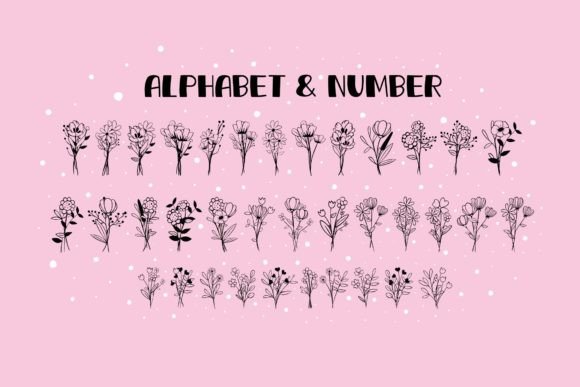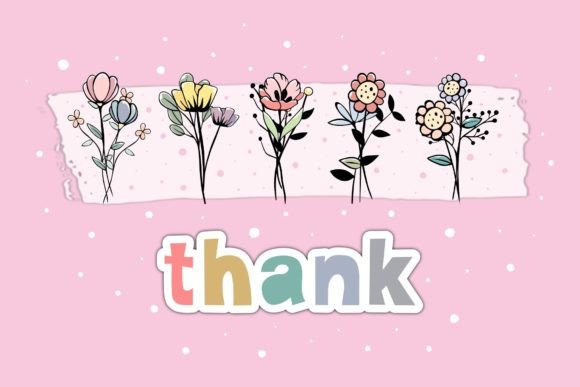
Unleash Your Creativity with the Bunch of Flowers Font
Have you ever found yourself lost in a sea of ideas, with a blank page staring back at you, begging for inspiration? We’ve all been there. As creatives, we’re constantly seeking that spark that sets our imagination ablaze and brings our visions to life. For designers, finding the perfect font can be the missing piece that ties everything together.
That’s where the Bunch of Flowers Font comes in – a nature dingbats font that’s perfect for all your creative projects. Whether you’re designing logos, wall art, signs, cards, or art prints, this charming font adds a touch of whimsy and personality to any design. With its versatility and charm, the Bunch of Flowers Font is a valuable asset for designers looking to add a unique touch to their work.
Bunch of Flowers Font Key Features
- Font Family: Bunch of Flowers is a unique, handwritten font designed to evoke a whimsical and playful feel.
- Unique Characteristics: Features an organic, hand-drawn feel with subtle imperfections and variations in line weight, giving it a personal and charming touch.
Bunch of Flowers Font Review
I’ve worked with the Bunch of Flowers font on a few projects, and I have mixed feelings about it. On the plus side, ✨ the font has a playful and whimsical feel that can add a touch of elegance to certain designs. It’s perfect for projects that require a vintage or floral theme. ✨ The font is also highly customizable, allowing designers to adjust the size, color, and spacing to suit their needs.
However, ⚠️ I’ve found that the font can be a bit challenging to read, especially at smaller sizes. The intricate details and curves of the font can make it difficult to distinguish between certain letters. Additionally, ⚠️ the font may not be suitable for projects that require a modern or minimalist aesthetic. The ornate design can be overwhelming and may detract from the overall message of the design.
Overall, I think the Bunch of Flowers font is a solid choice for designers who are looking for a unique and eye-catching font. However, it’s essential to consider the limitations and potential drawbacks before using it in a project.
The Bunch of Flowers font is ideal for:
Children’s party decorations and materials
Floral-themed product packaging and branding
Whimsical and playful social media graphics